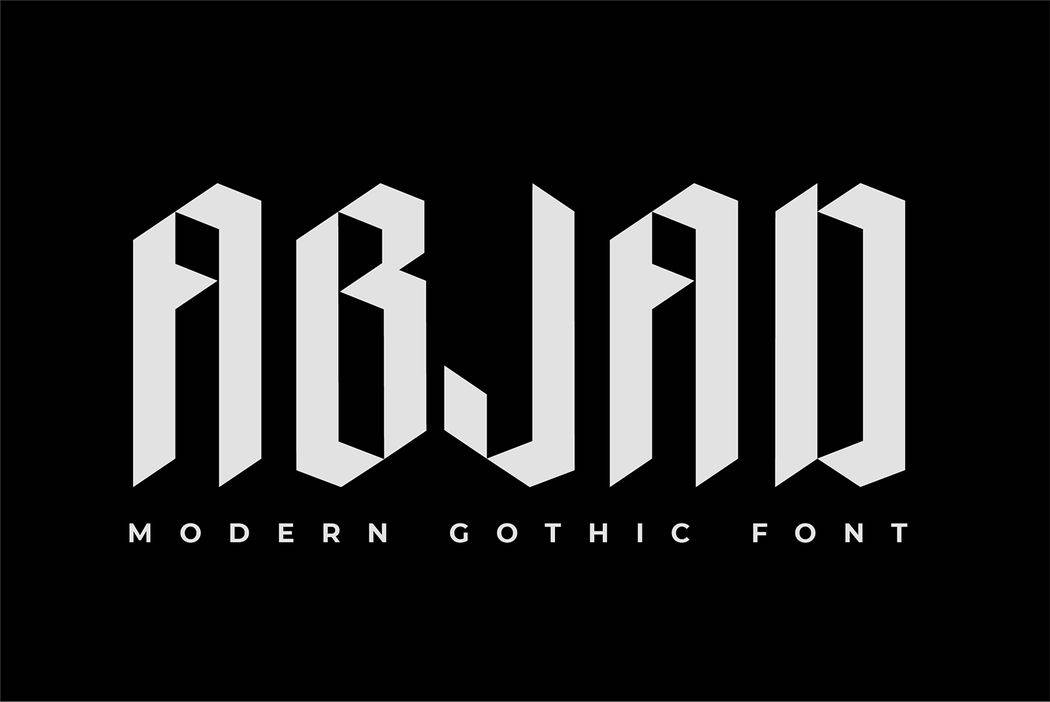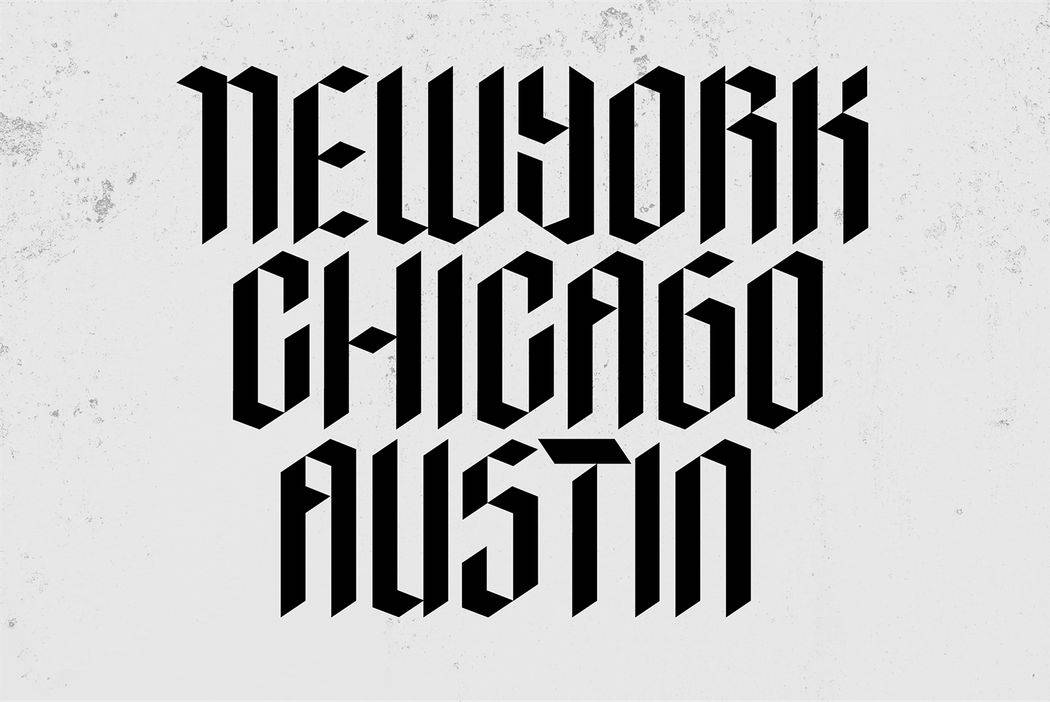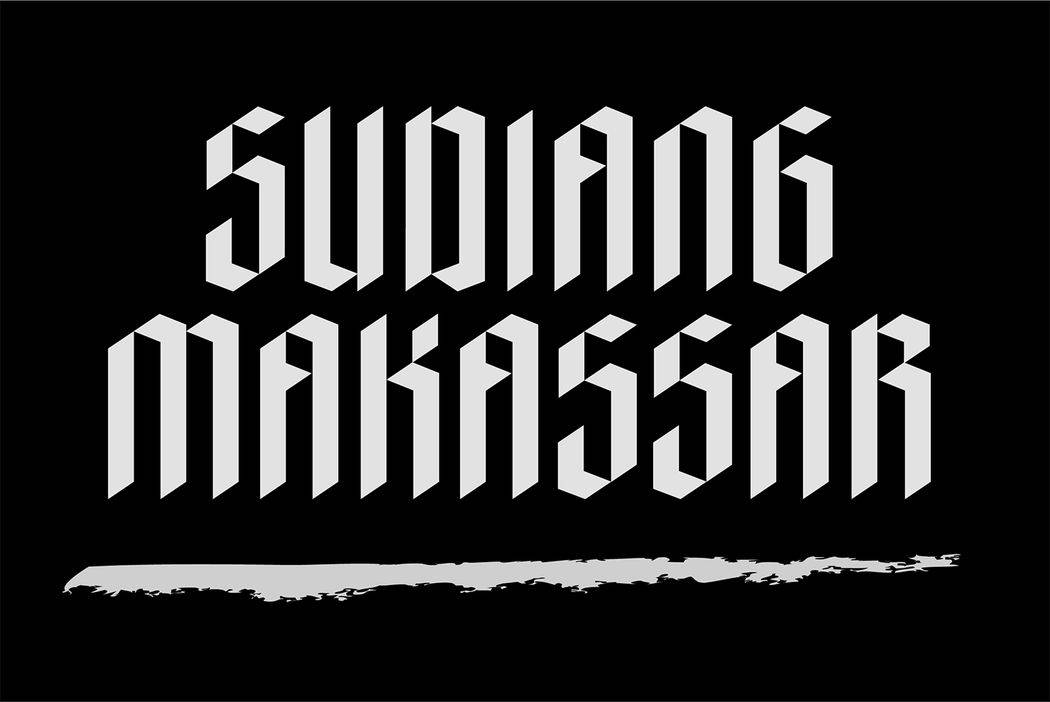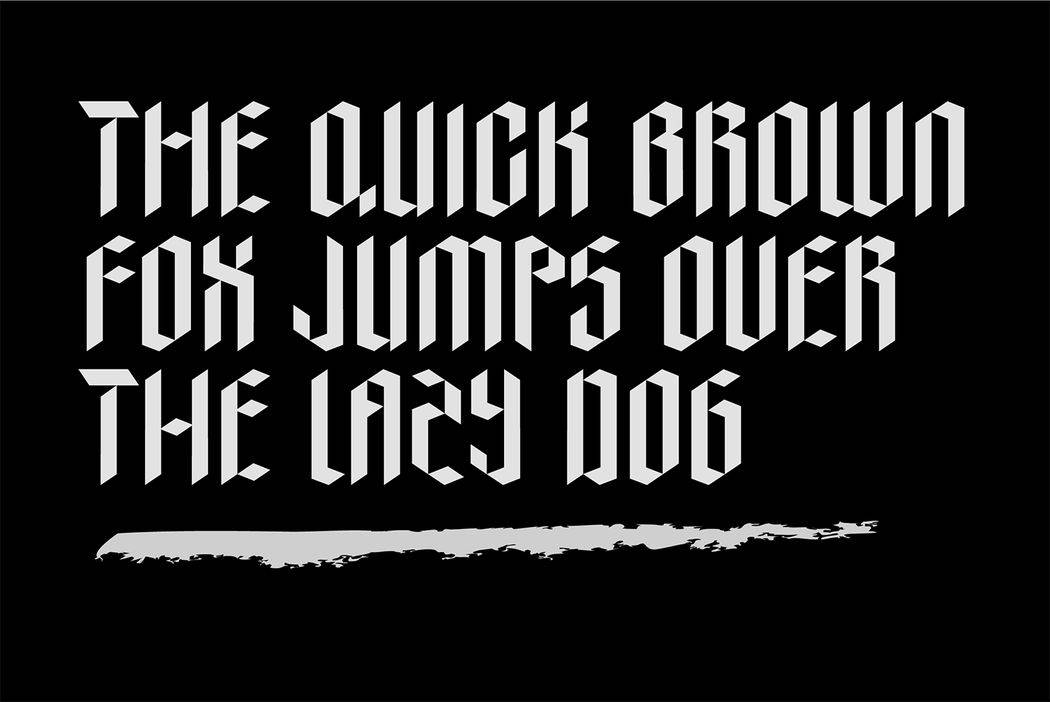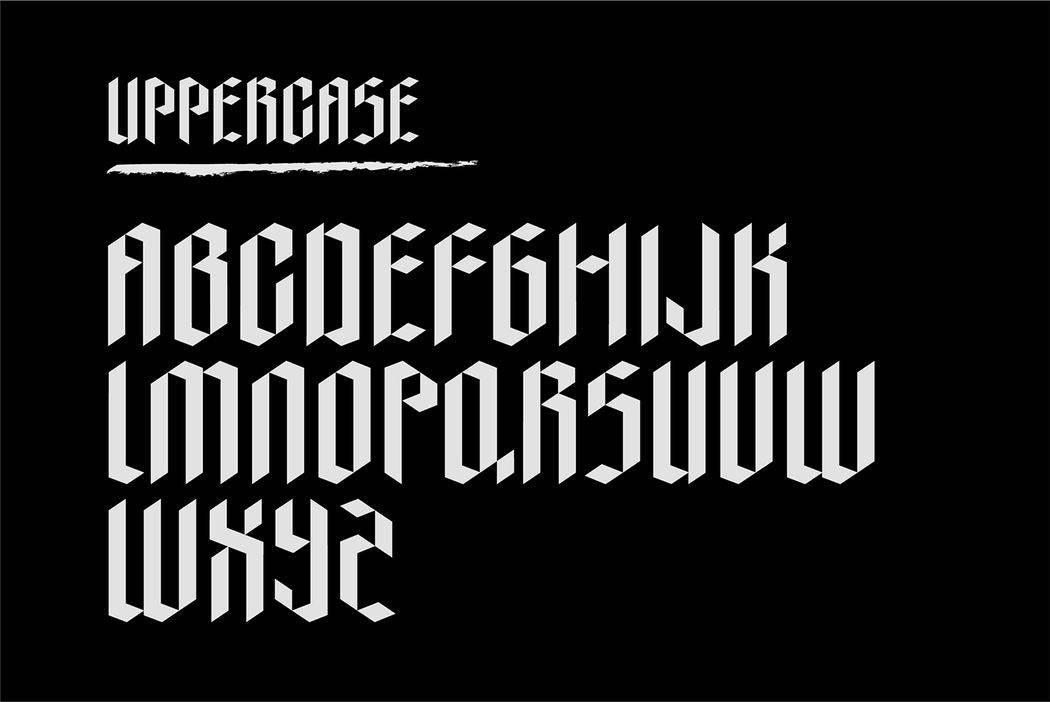
Abjad is a bold, condensed blackletter-inspired sans serif font with sharp, geometric strokes and a high contrast between thick verticals and thinner connecting elements. Its tall, angular letterforms convey a strong, edgy personality suited for striking headlines, logos, and display use where a modern yet historic feel is desired. This font works well in branding or graphic projects that want to evoke strength and tradition with a contemporary twist.
Abjad Font
About Abjad Font
| Font family | Abjad Font |
| Designer | Muhammad Muammar / @hellowammar |